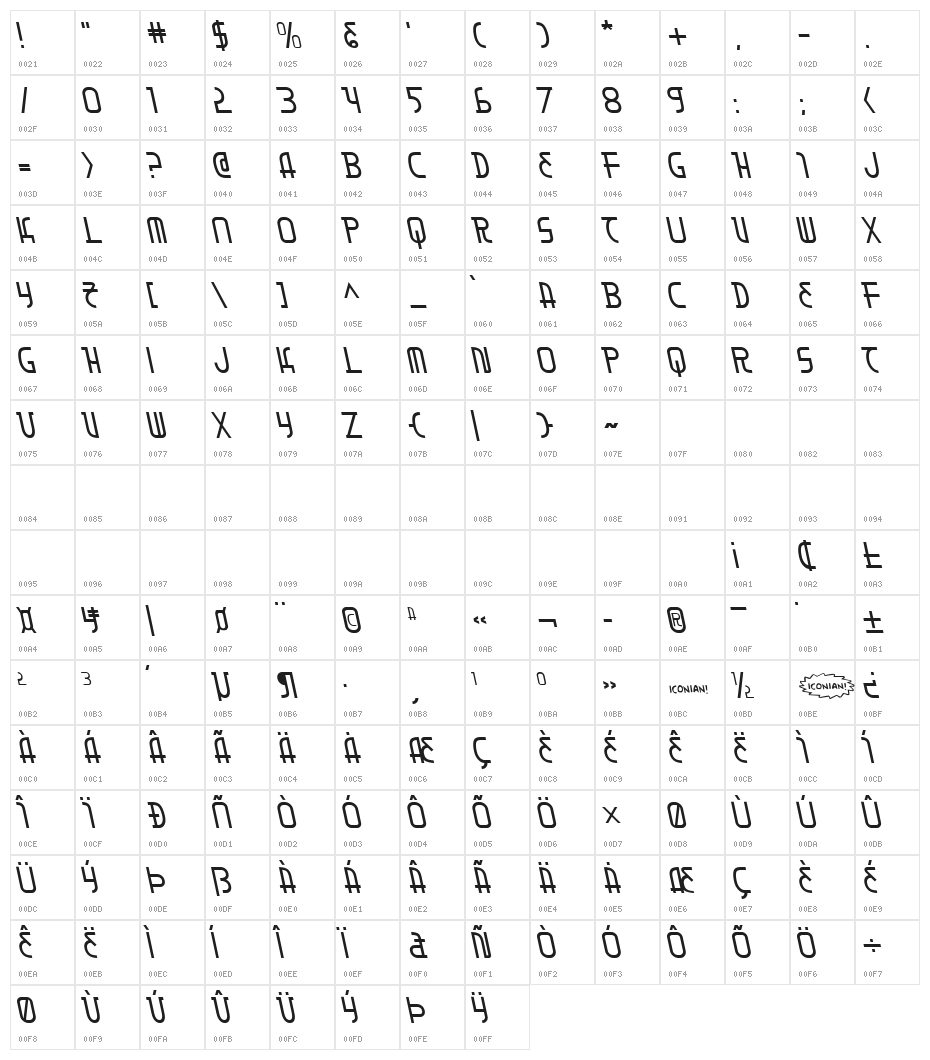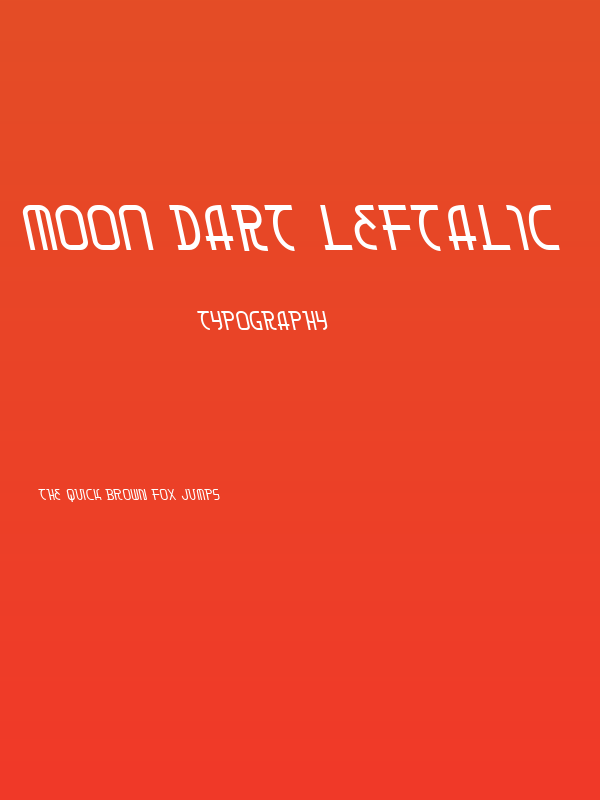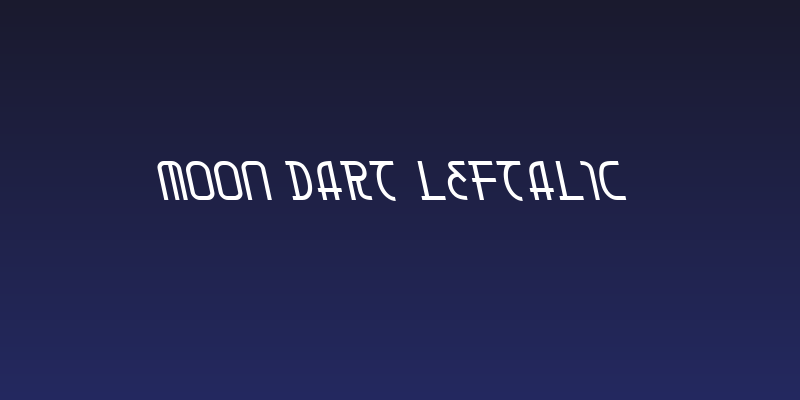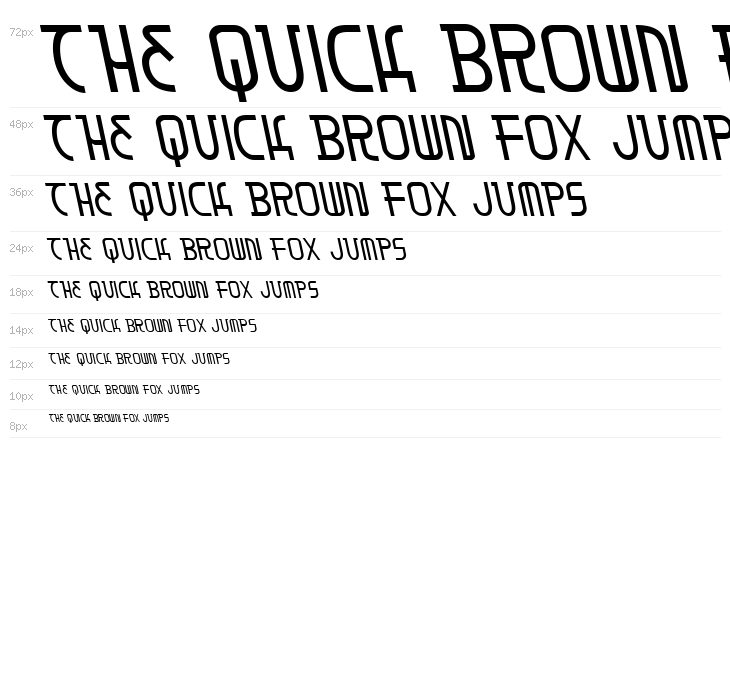
Moon Dart Leftalic Font
Moon Dart Leftalic Description
This font features a modern and futuristic design with a unique geometric structure. The characters are slightly slanted, giving an italicized appearance, while maintaining a bold and confident presence. The strokes are consistent in thickness, providing a uniform look across all characters. The uppercase and lowercase letters share similar design elements, creating a cohesive and harmonious appearance. The numerals and special characters are designed to match the overall style, ensuring versatility in various applications. The font's distinct style makes it suitable for projects that require a contemporary and edgy aesthetic.
| Overall Style | Futuristic, Geometric |
| Proposed Projects | Ideal for tech branding, futuristic posters, and innovative product packaging. |